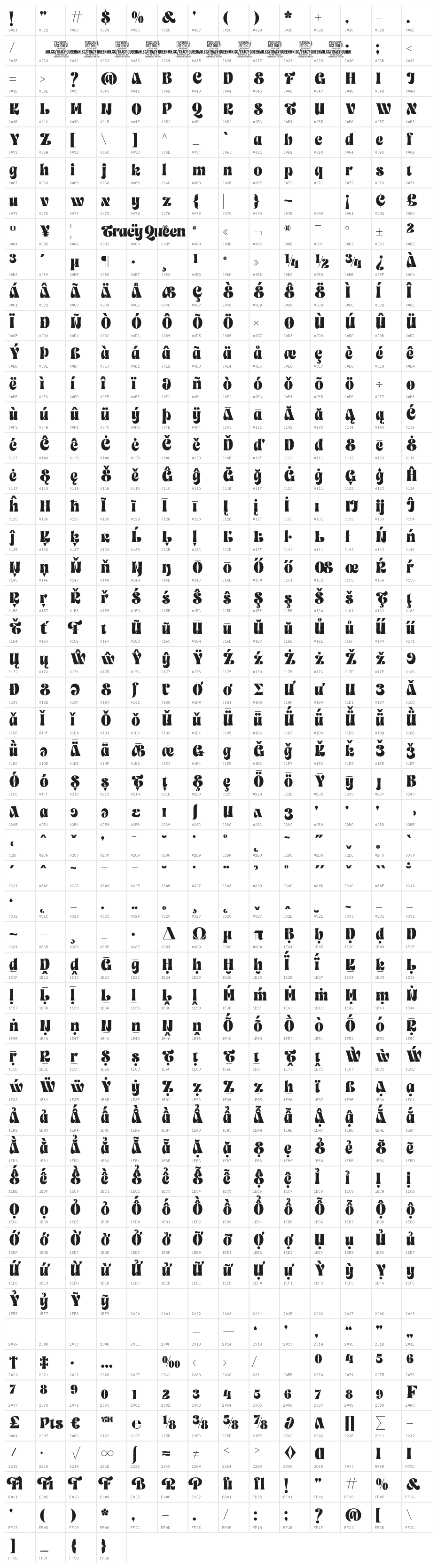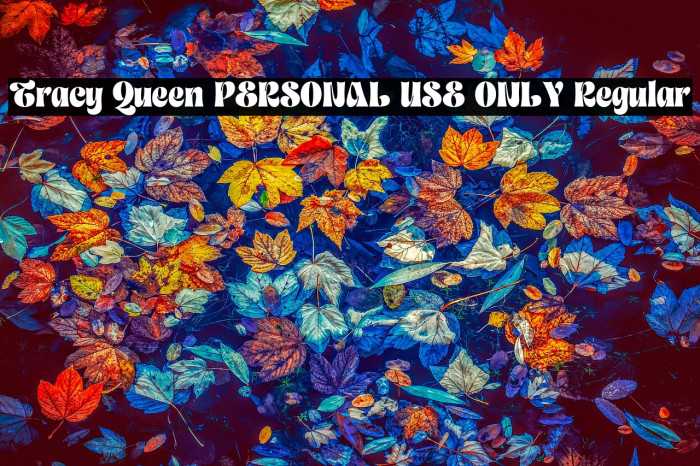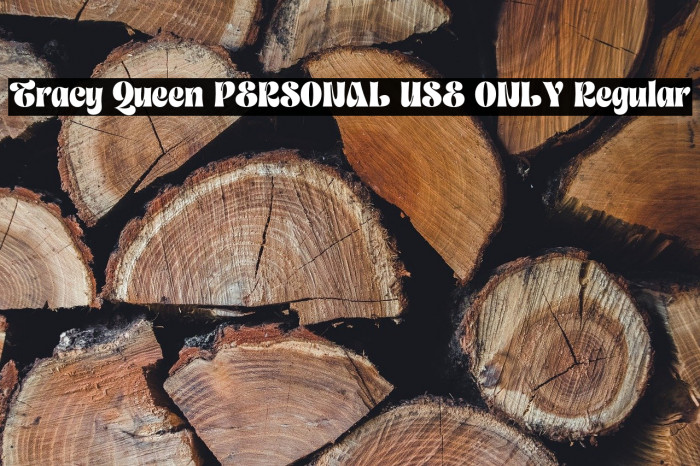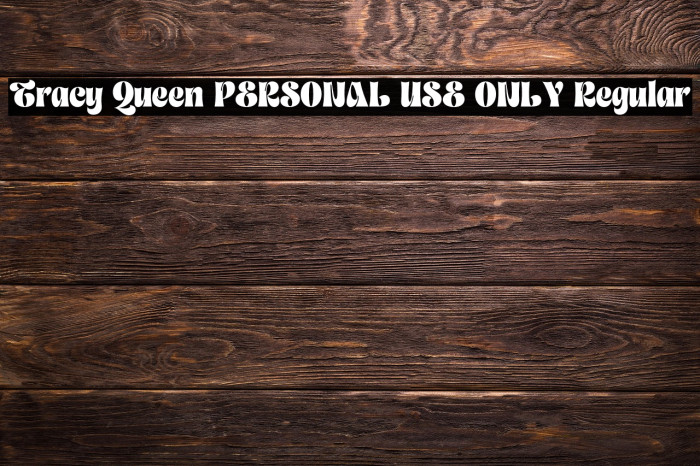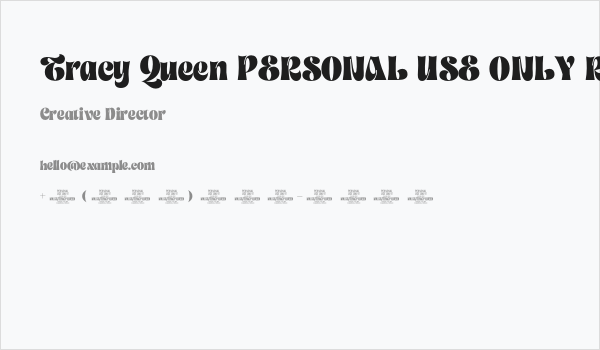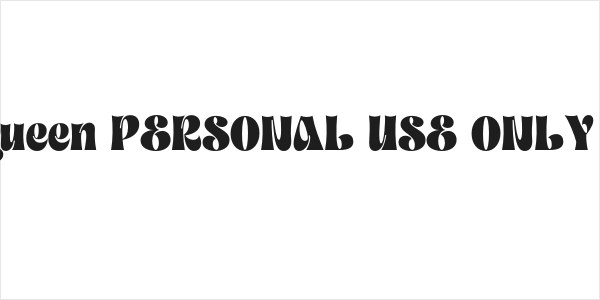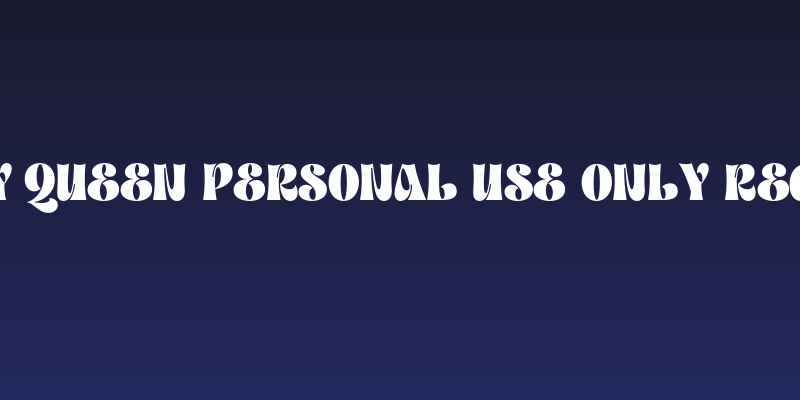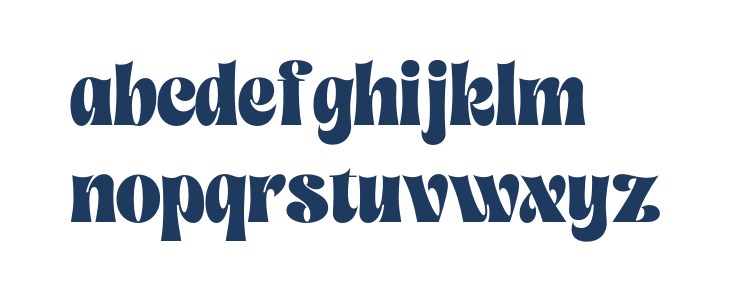
Tracy Queen PERSONAL USE ONLY Regular Font
Tracy Queen PERSONAL USE ONLY Regular Description
This font features a bold and dramatic style with thick, heavy strokes and a high contrast between thick and thin lines. The characters are uniquely designed with a playful and artistic flair, incorporating curves and swirls that give it a distinctive, eye-catching appearance. The uppercase letters are particularly striking, with exaggerated serifs and a strong presence. The lowercase letters maintain the same boldness, ensuring consistency throughout the text. The numerals and special characters are equally bold, making them stand out in any design. This font is perfect for making a statement and drawing attention.